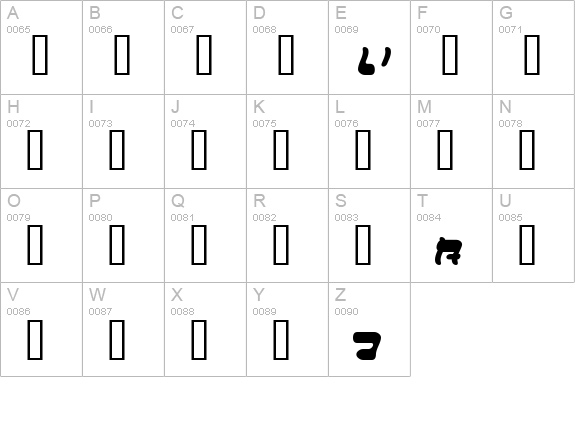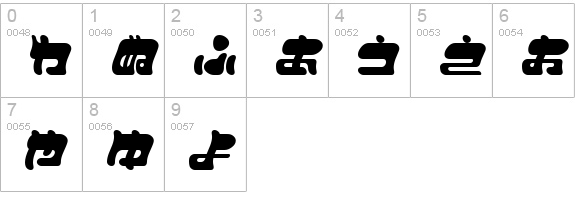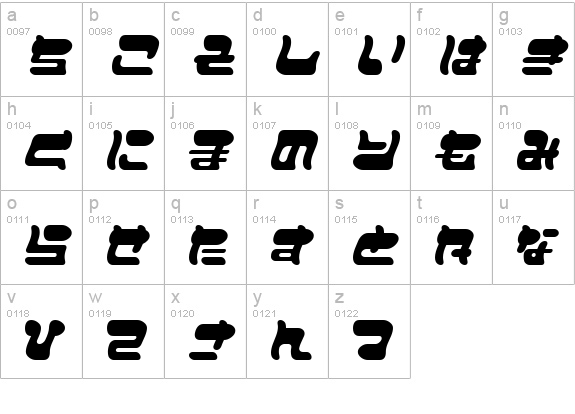
I2FuwafuwaFururu HW Font Details
Introducing the mesmerizing I2FuwafuwaFururu HW font, a true masterpiece that will captivate your imagination and bring a touch of elegance to any design project. This font is a harmonious blend of delicacy and sophistication, capturing the essence of grace and beauty. With its whimsical curves and soft edges, I2FuwafuwaFururu HW is perfect for adding a unique and enchanting touch to your creative endeavors. Whether you're designing invitations, creating stunning logos, or crafting eye-catching headlines, this font will make your work stand out from the crowd. One of the best features of I2FuwafuwaFururu HW is that it is freely available to download at FontsMarket.com. Yes, you heard it right! This incredible font can be yours without any cost. Now, you can enhance your designs with this exquisite font without breaking the bank. I2FuwafuwaFururu HW is not only visually stunning but also highly versatile. It comes with a wide range of characters, including uppercase letters, lowercase letters, numbers, and punctuation marks. This ensures that you have everything you need to create visually appealing and cohesive designs. The readability of I2FuwafuwaFururu HW is exceptional, making it suitable for a variety of design projects. Whether you're working on digital designs, print materials, or even branding, this font will make your text effortlessly legible while adding a touch of elegance. So, why wait? Don't miss the opportunity to download I2FuwafuwaFururu HW for free at FontsMarket.com. Get ready to elevate your designs with this stunning font that combines beauty, versatility, and affordability. Let I2FuwafuwaFururu HW take your creativity to new heights and impress your audience with its enchanting charm!